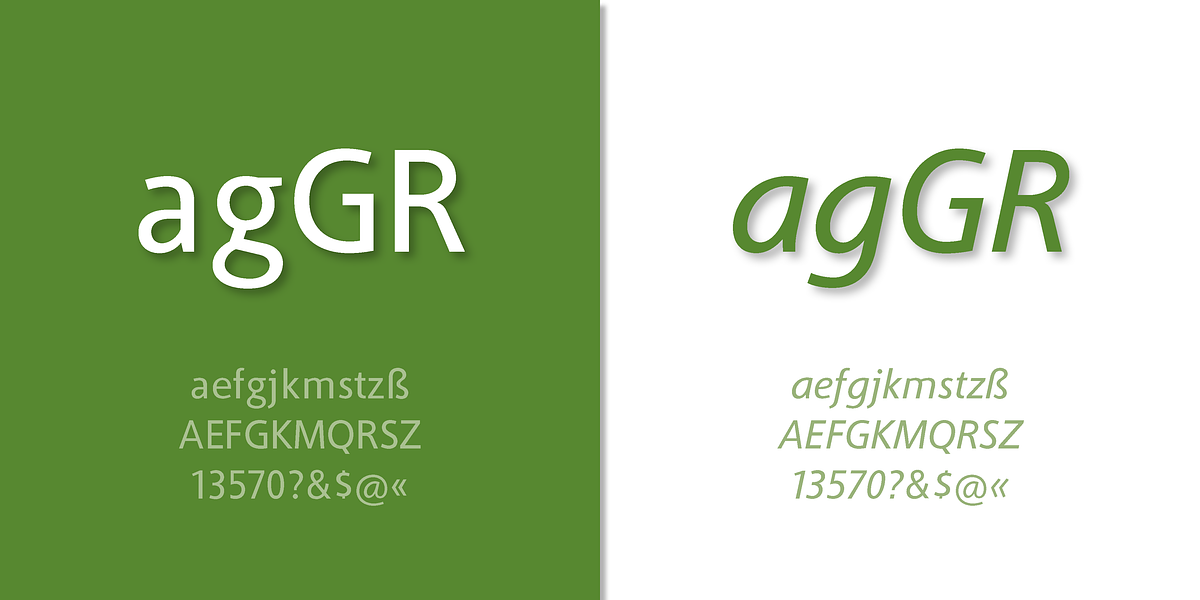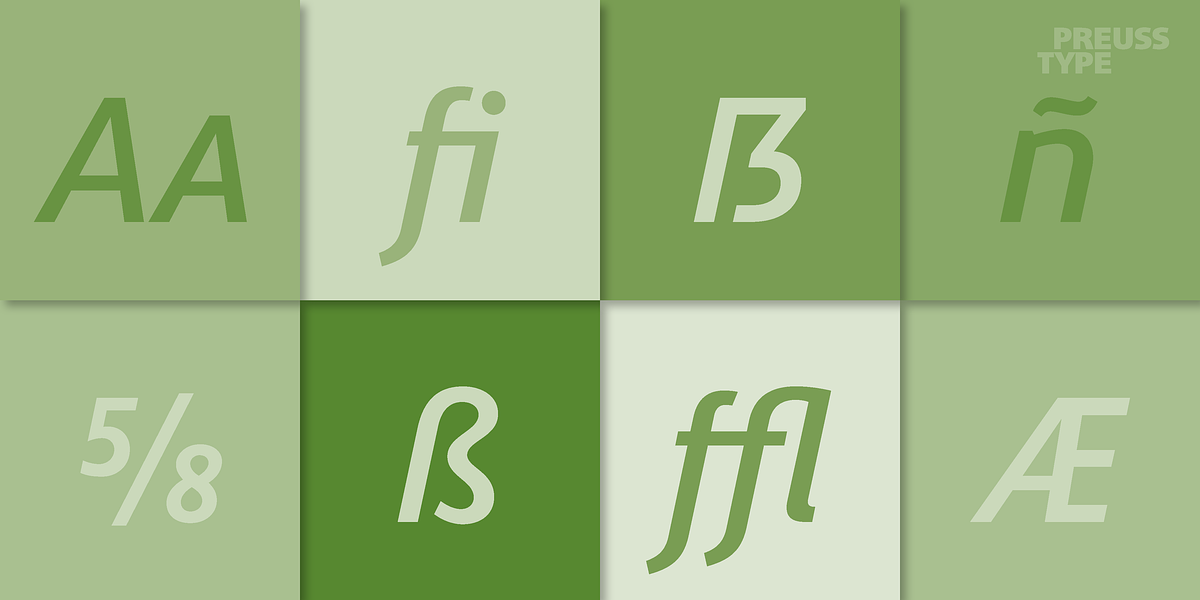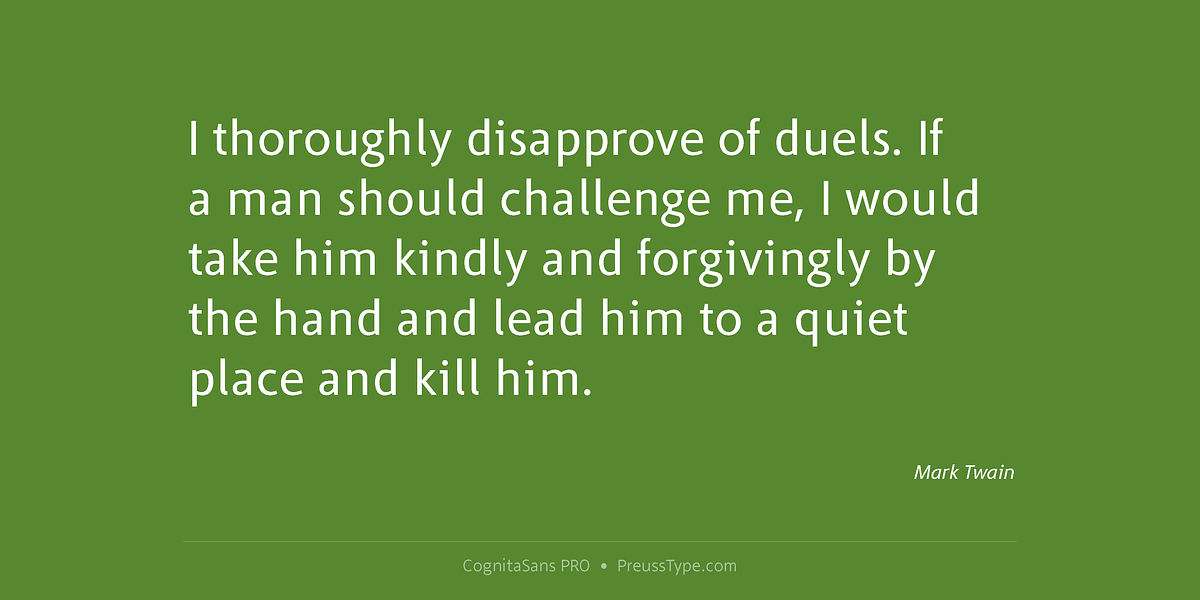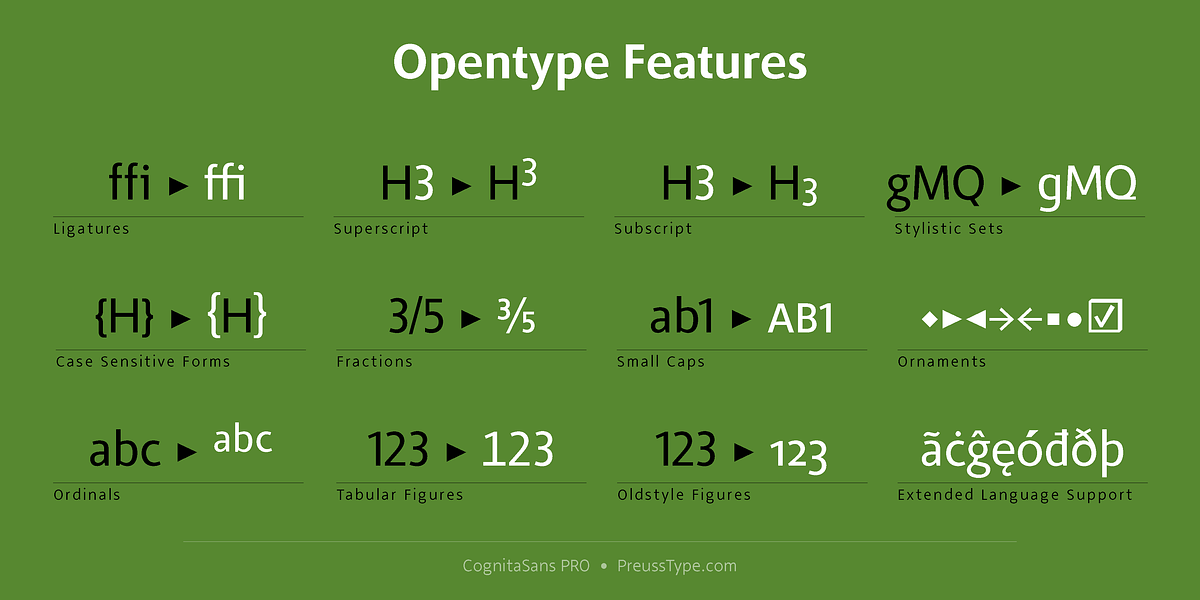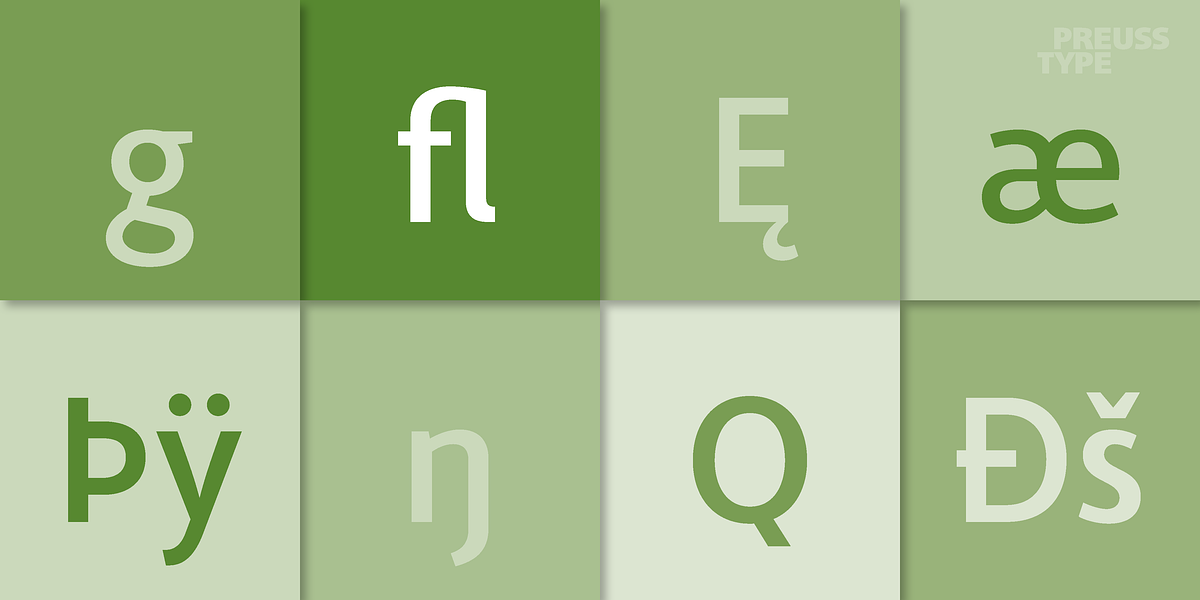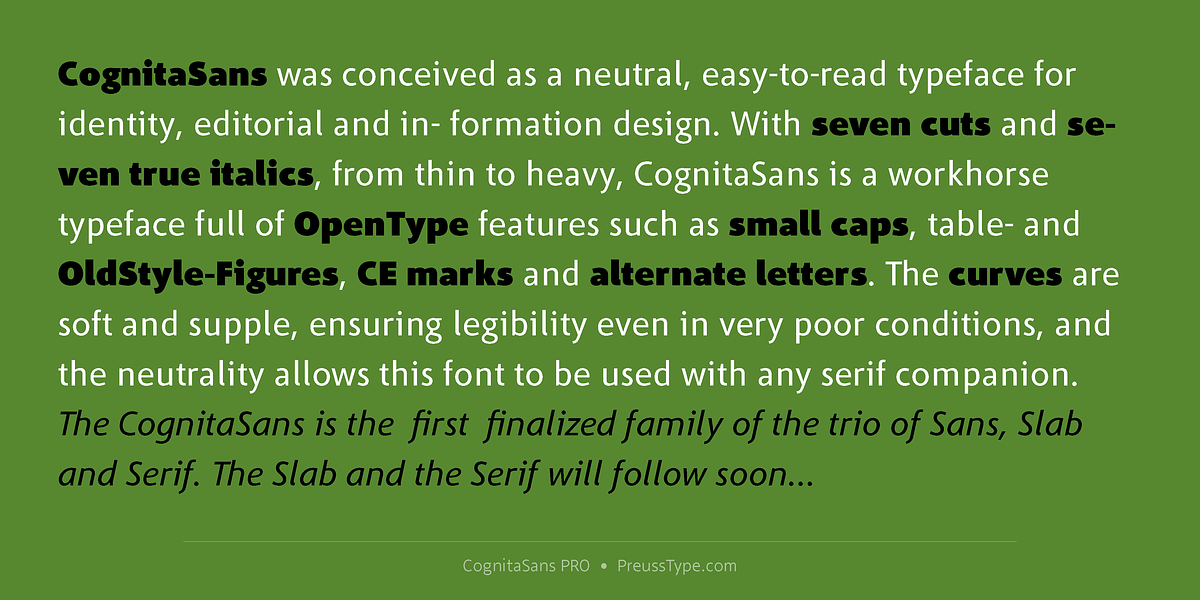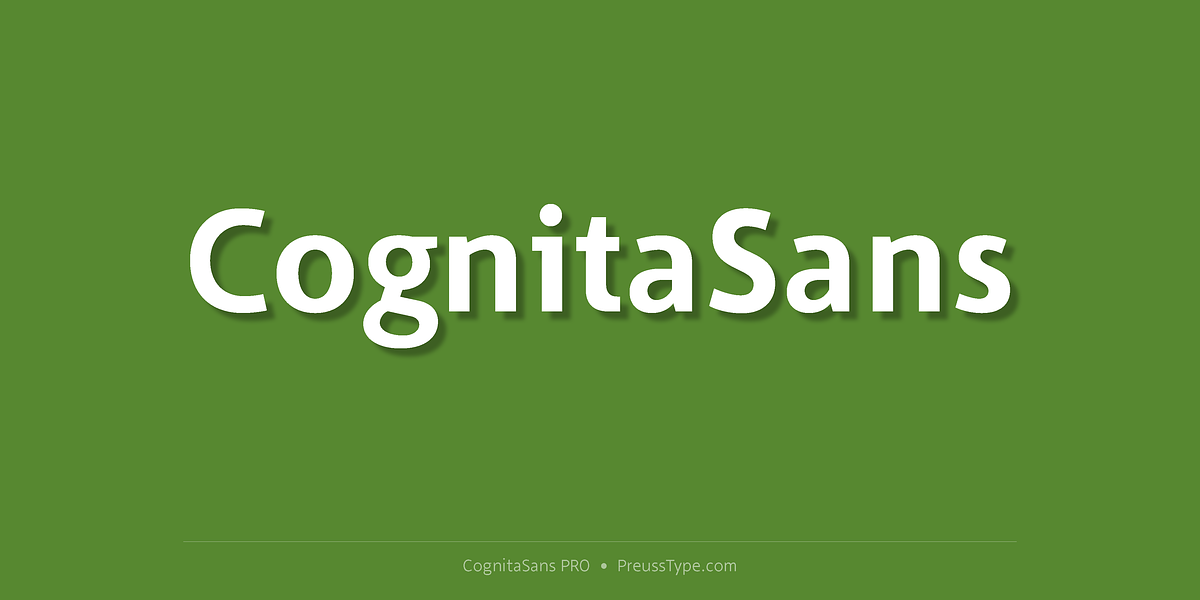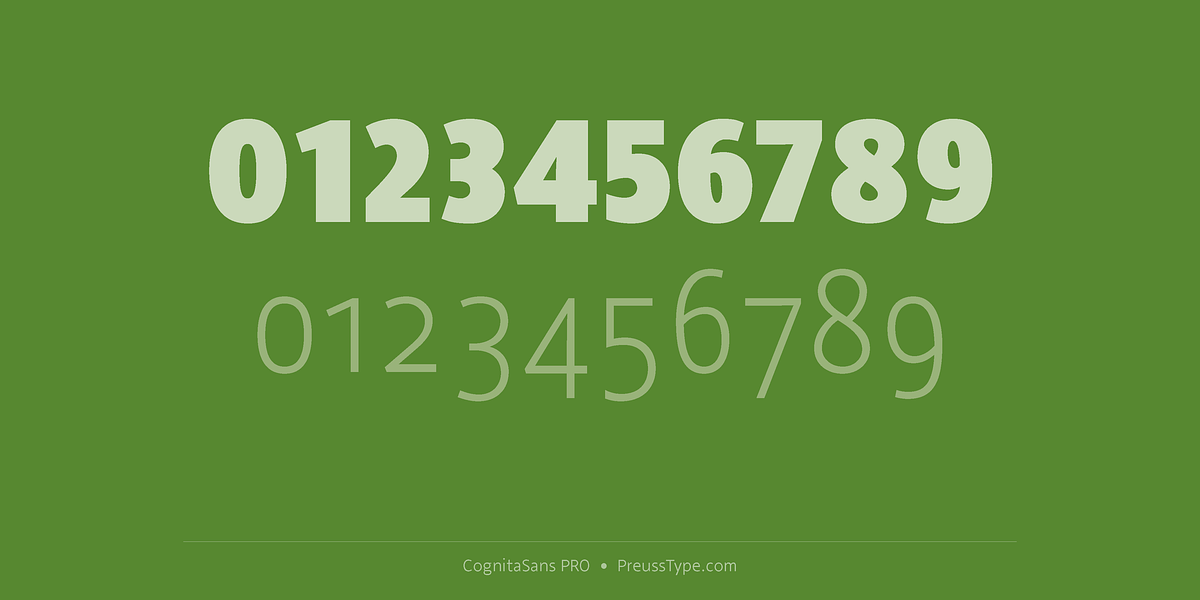
CognitaSans PRO
CognitaSans is designed as a versatile typeface for various applications, including identity design, editorial work, and information graphics. It boasts seven weights and matching italics, ensuring flexibility in typographic choices. The font features OpenType functionalities like small caps, tabular and old-style figures, CE marks, and alternate characters, enhancing its usability and visual appeal. Its soft curves contribute to excellent legibility even in challenging conditions. The neutrality of CognitaSans allows it to pair well with serif fonts for complementary designs.